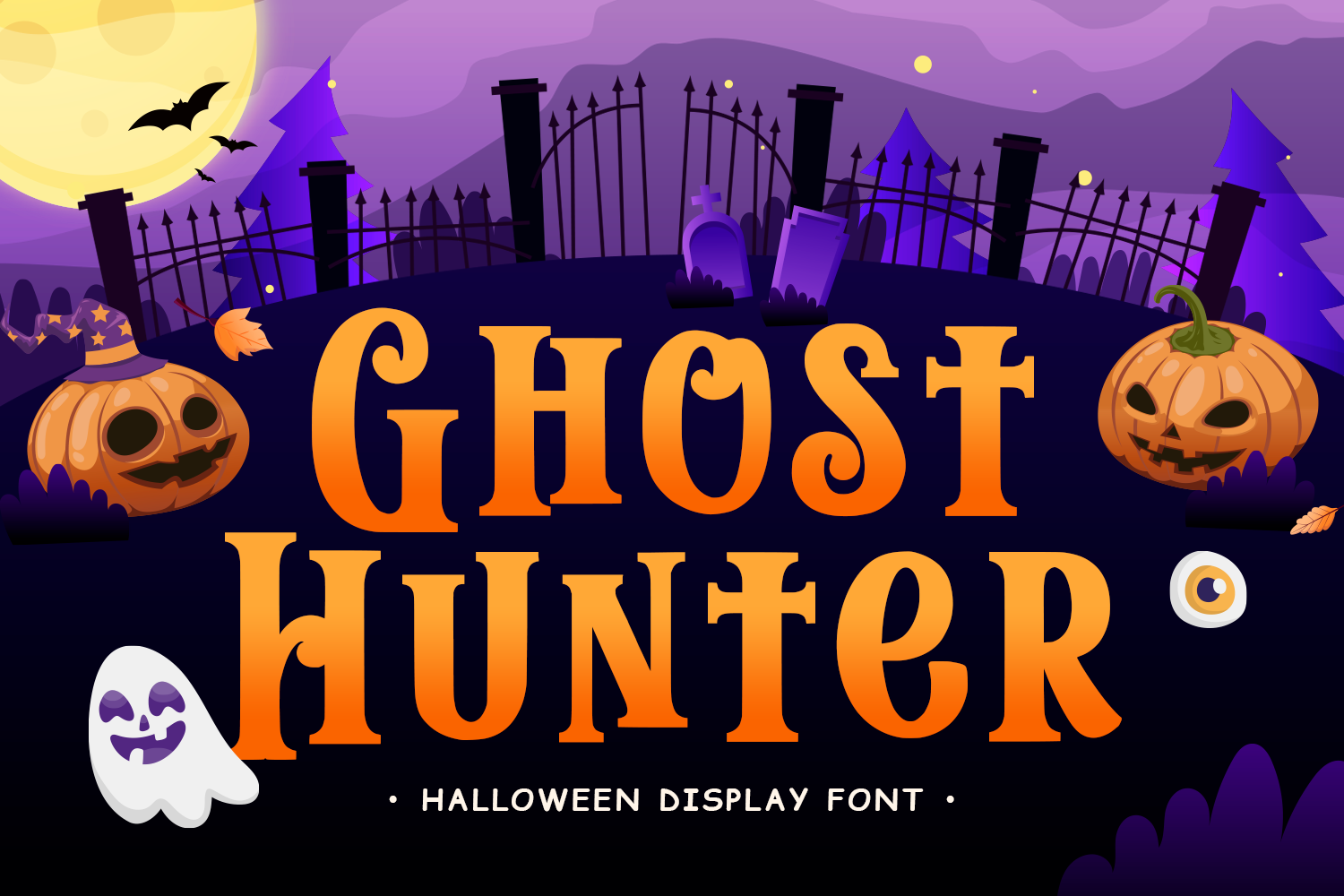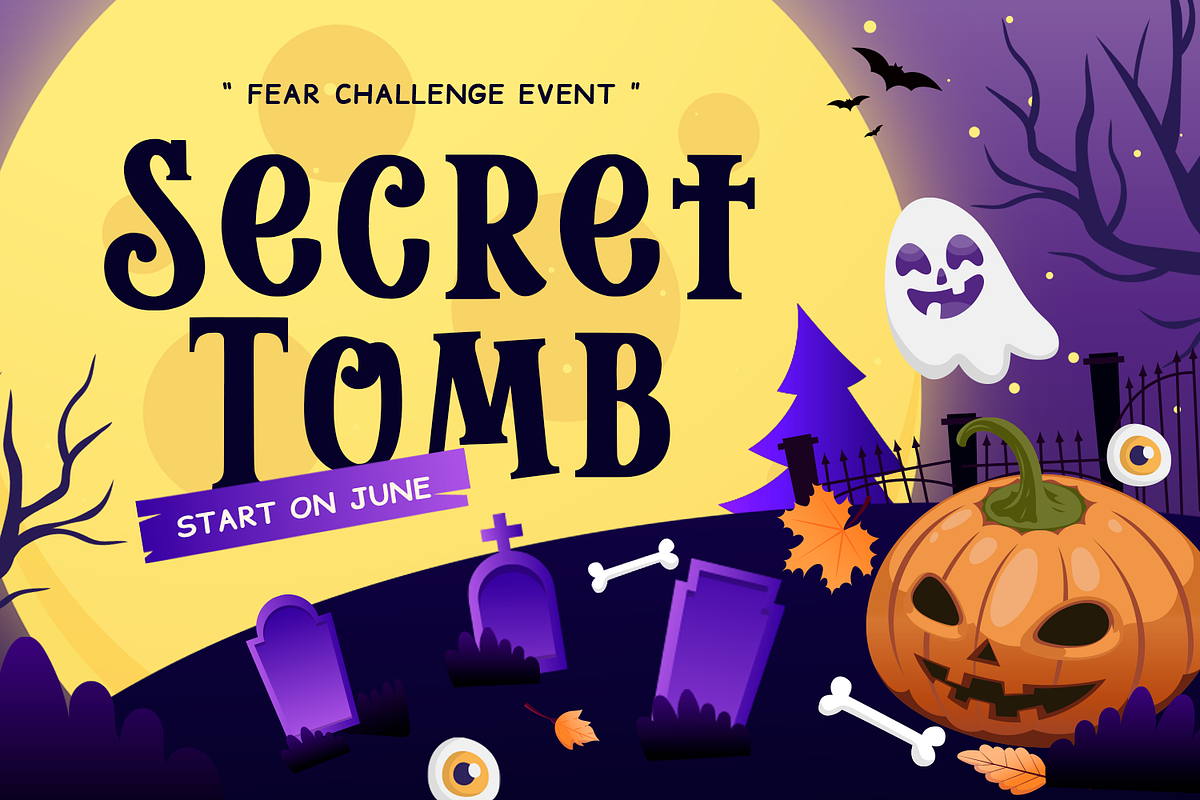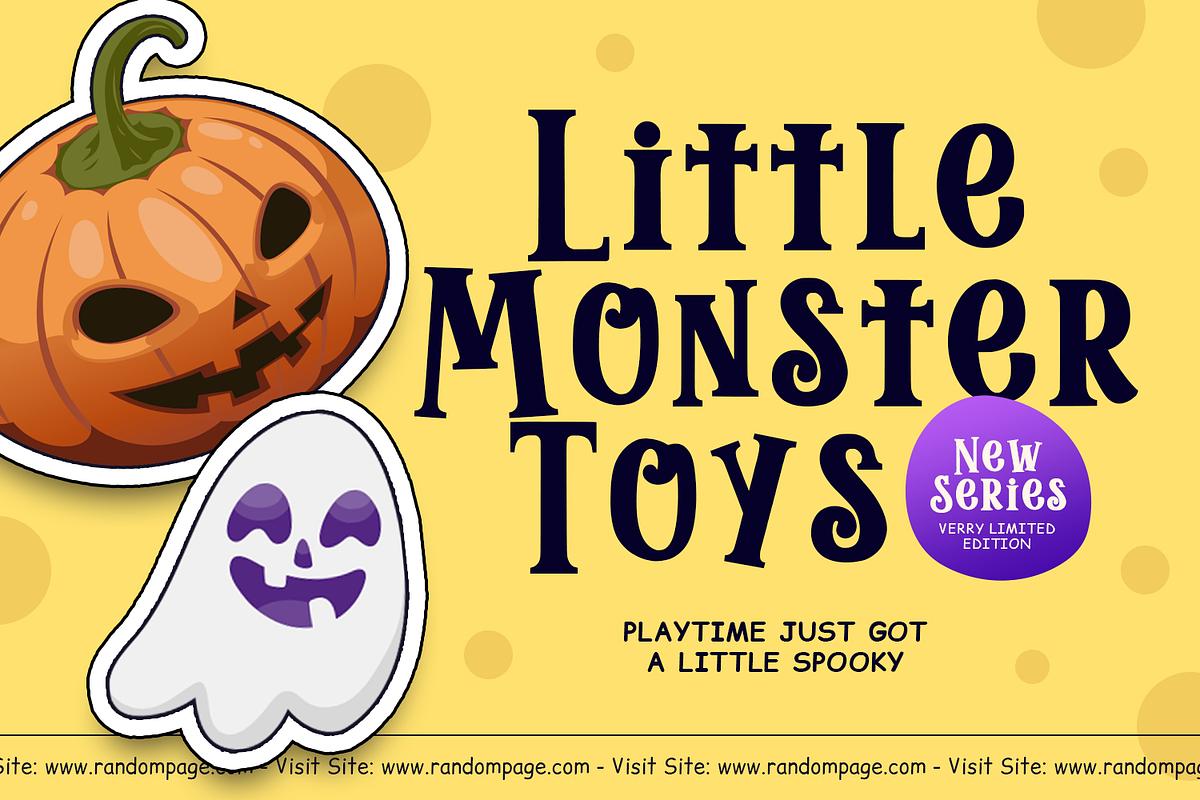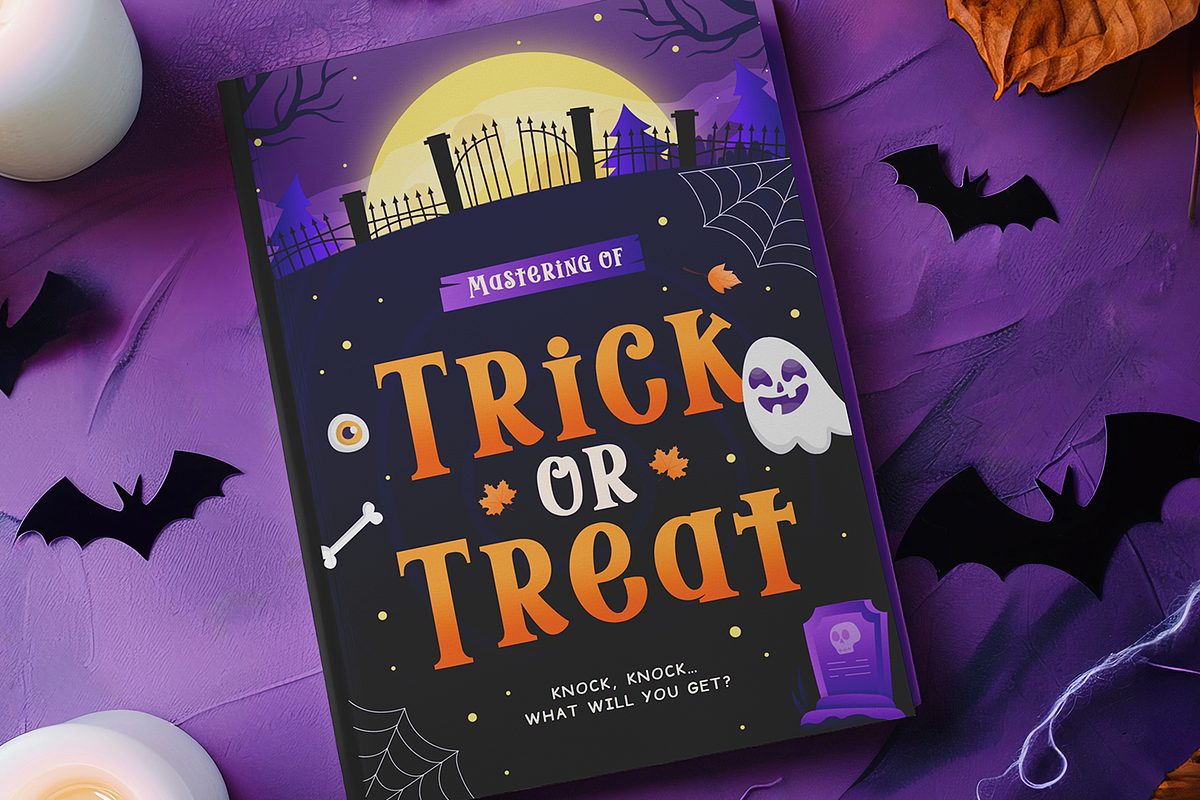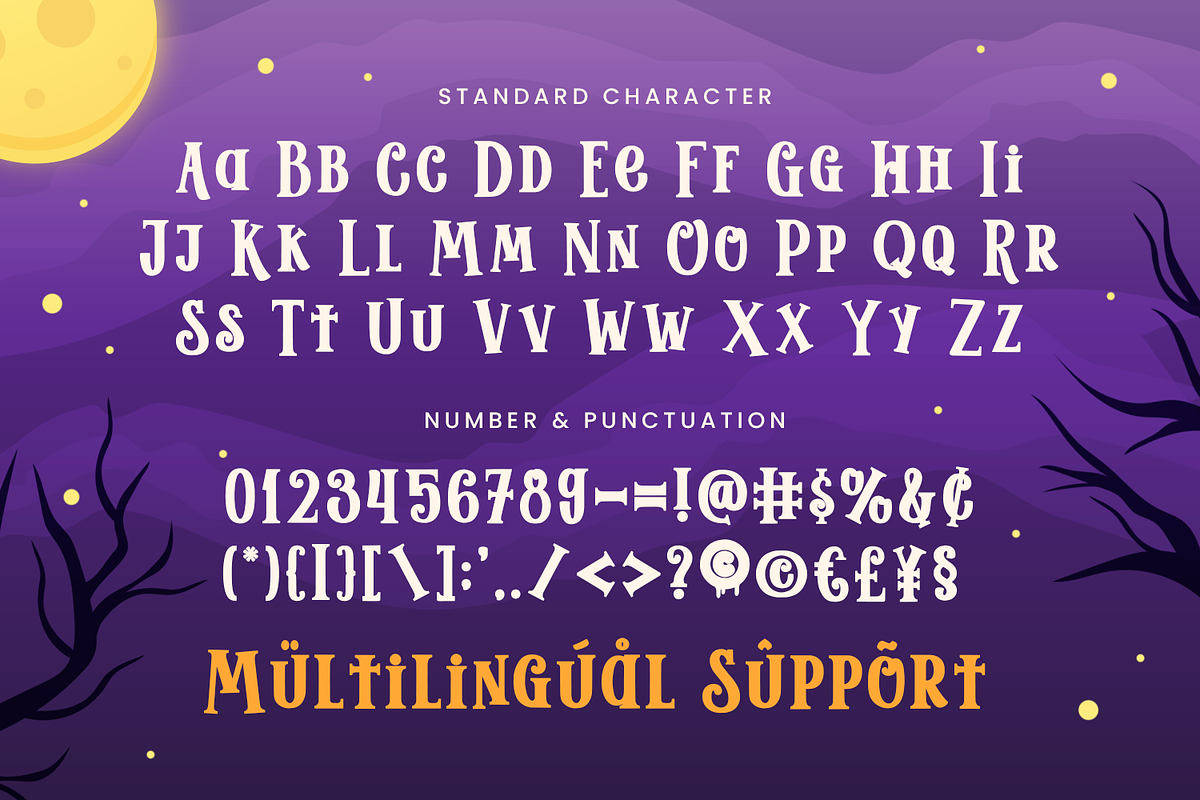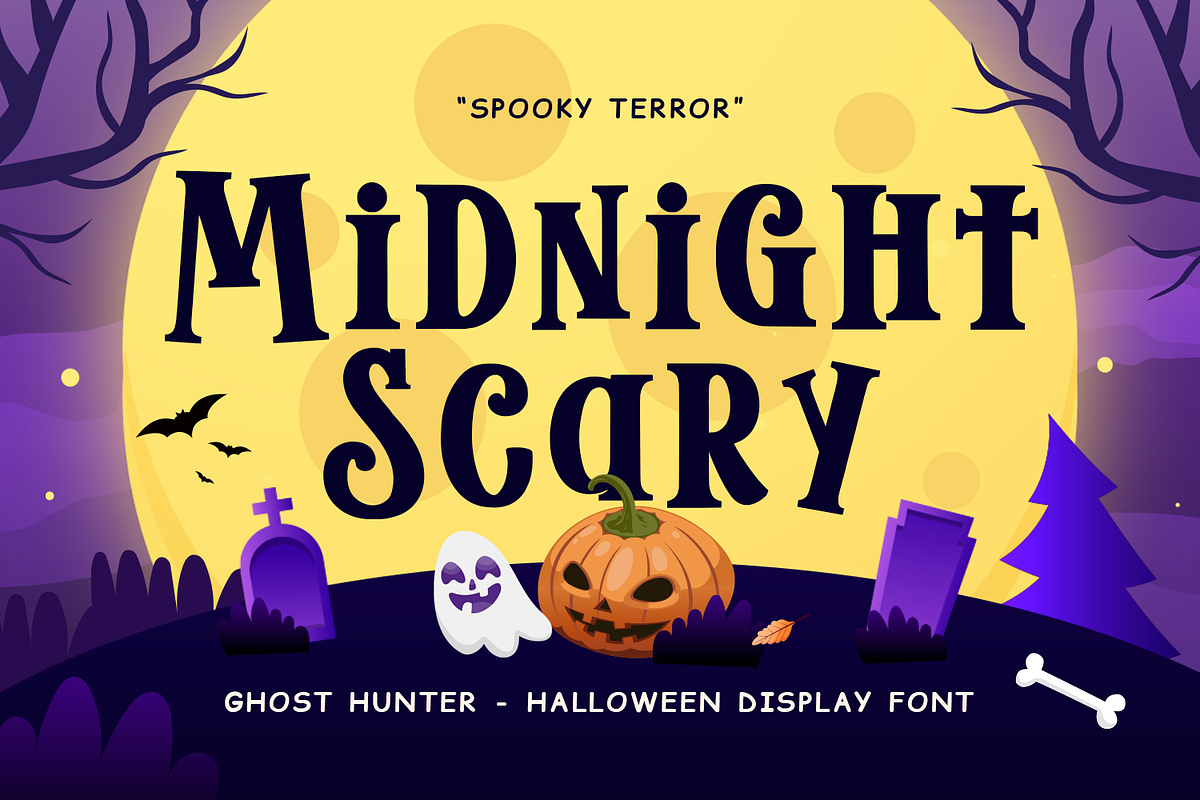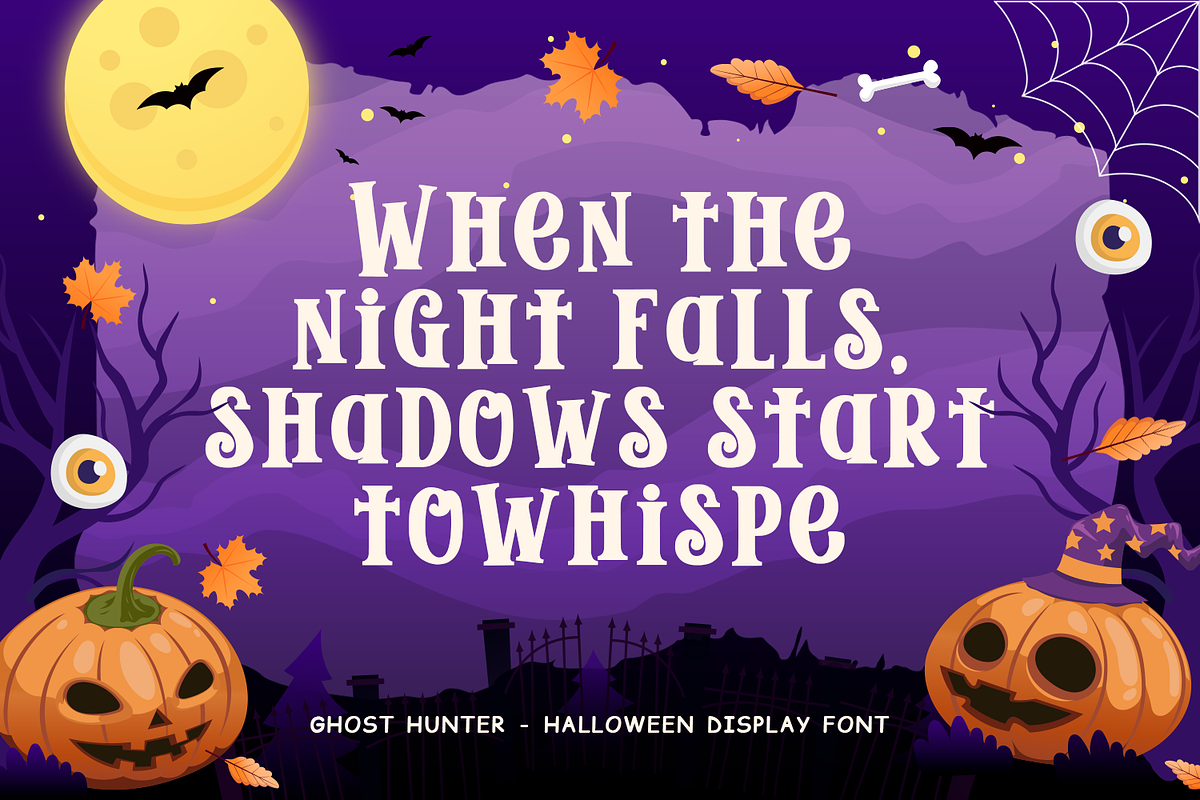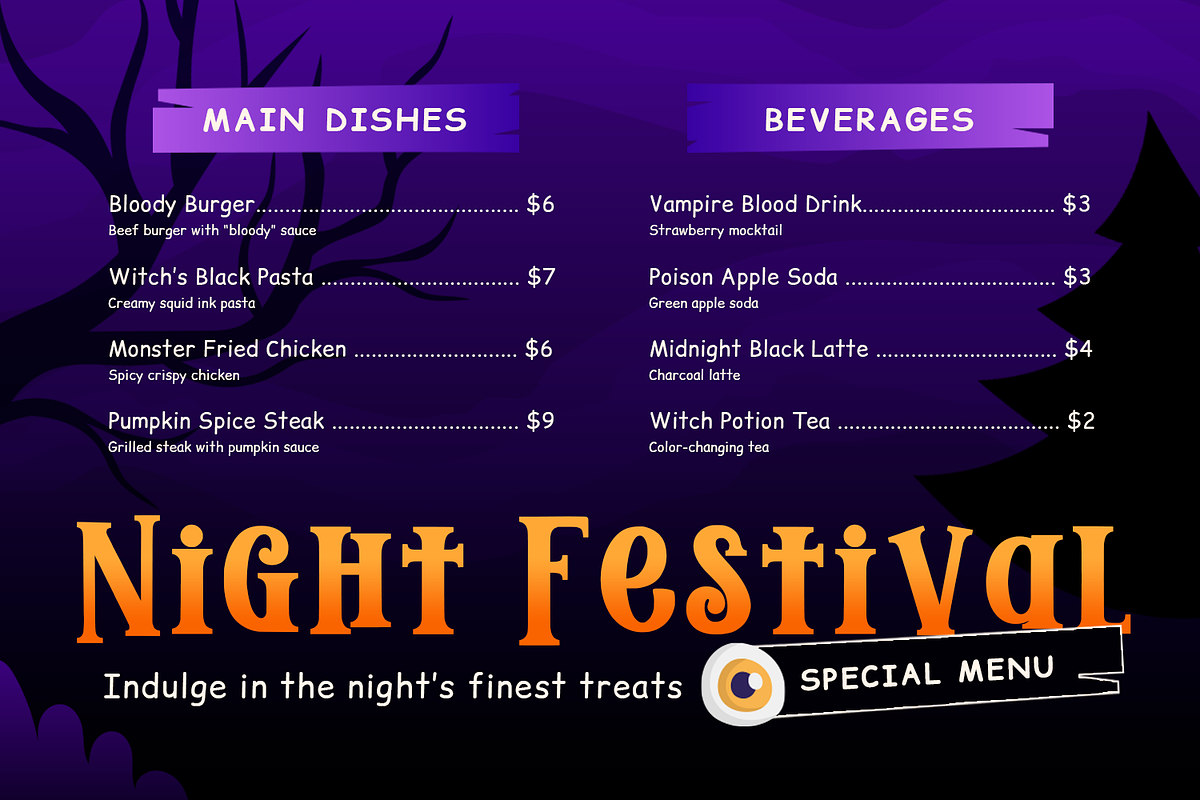
Halloween Font - Ghost Hunter
Ghost Hunter – Halloween Font
Ghost Hunter is a spooky and playful Halloween font designed to bring creepy fun and haunting excitement to your seasonal creations. With its bold horror-inspired letterforms and eerie personality, this font perfectly captures the mysterious atmosphere of Halloween night while keeping a fun and eye-catching style.
Crafted with a unique spooky character, Ghost Hunter combines horror vibes with playful creativity. Its sharp details and haunting shapes create a dramatic appearance that instantly makes designs feel thrilling, mysterious, and unforgettable. The font delivers a strong Halloween aesthetic while remaining clear and readable for various creative projects.
This font is perfect for Halloween-themed designs, horror party invitations, spooky posters, haunted house promotions, trick-or-treat decorations, and scary social media content. Its creepy style adds excitement and personality, making every design stand out with a dark and festive atmosphere.
Ghost Hunter works beautifully for posters, t-shirts, mugs, stickers, product packaging, horror movie titles, YouTube thumbnails, party banners, and seasonal merchandise. The spooky letterforms help create designs that feel fun, chilling, and full of Halloween spirit.
The font is also ideal for DIY and crafting projects such as Cricut designs, SVG cut files, handmade decorations, and custom Halloween products. Whether used for digital or print media, Ghost Hunter adds a bold and haunting touch to every creation.
Spooky Halloween Style
Horror-inspired letterforms with a fun creepy personality.
Bold & Eye-Catching
Designed to make Halloween designs stand out instantly.
Creepy Yet Readable
Decorative horror style while maintaining good readability.
Perfect for Seasonal Projects
Ideal for Halloween events, horror themes, and spooky branding.
Craft-Friendly Design
Great for Cricut, SVG files, DIY crafts, and handmade decorations.
Includes extended multilingual characters for wider creative use.
• Halloween Designs
• Horror Party Invitations
• Haunted House Promotions
• Posters & Banners
• T-Shirts & Merchandise
• Social Media Graphics
• Stickers & Packaging
• DIY Crafts & Cricut Projects
• Horror Movie & YouTube Titles
Create Spooky & Thrilling Halloween Designs
If you are looking for a font that combines creepy horror style, playful Halloween energy, and bold spooky character, Ghost Hunter is the perfect choice. This font helps you create designs that feel mysterious, fun, and unforgettable.